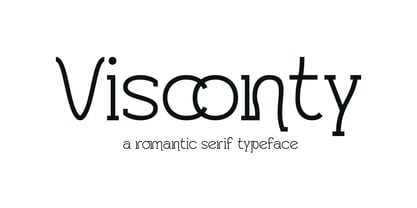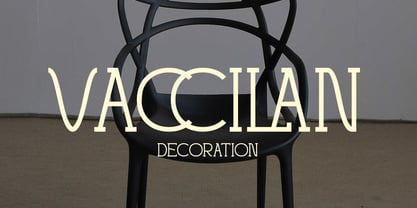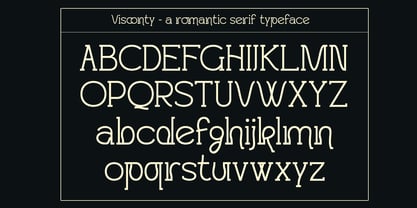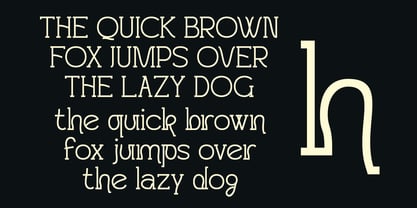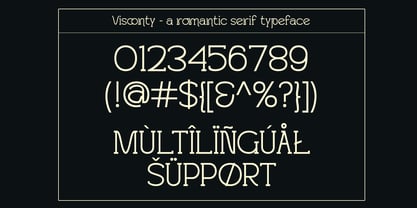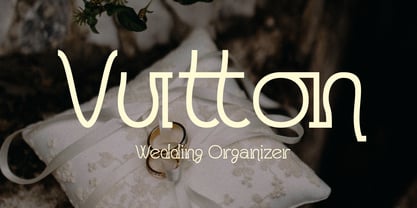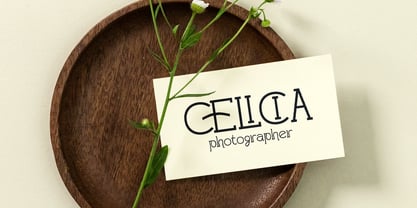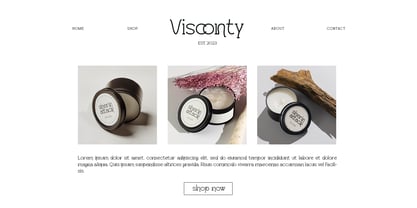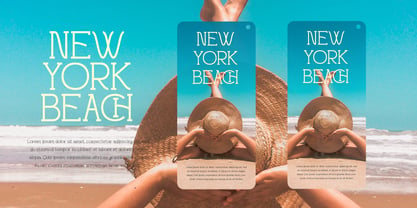
Visconty
Die Schriftfamilie Visconty wurde von Cees Kiiw entworfen und von Ceeskiiw veröffentlicht. Visconty enthält 1 Stile. Mehr über diese Familie
Visconty – Romantic Serif Typeface
Visconty is a graceful display serif typeface inspired by romance, elegance, and timeless beauty. Combining refined serif structures with flowing Art Nouveau-inspired curves, it offers a distinctive personality that feels both modern and vintage.
Each letterform is carefully crafted with soft geometric proportions, delicate decorative terminals, and elegant curves, making Visconty ideal for sophisticated branding and expressive typography. The unique details give headlines, logos, and packaging an artistic character while remaining highly readable.
Whether you're designing luxury branding, wedding stationery, beauty products, or editorial layouts, Visconty delivers an unforgettable visual identity with a warm and romantic aesthetic.
Its balance between minimalism and ornament makes it suitable for both contemporary and classic design projects, allowing creatives to build memorable brands with elegance and confidence.